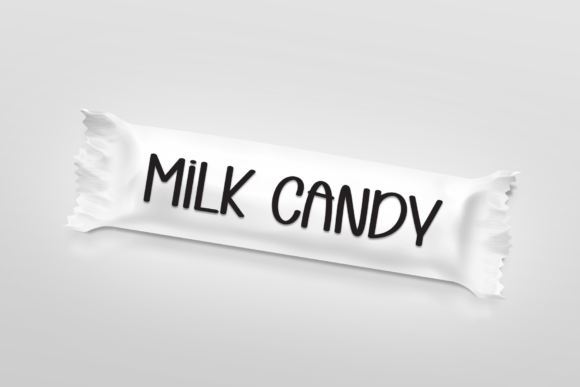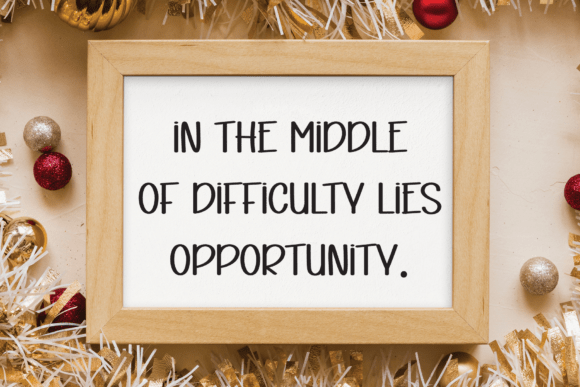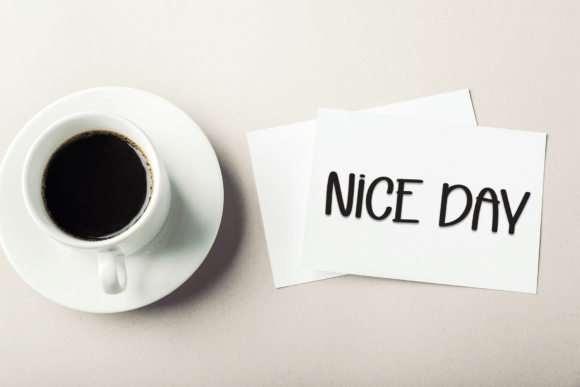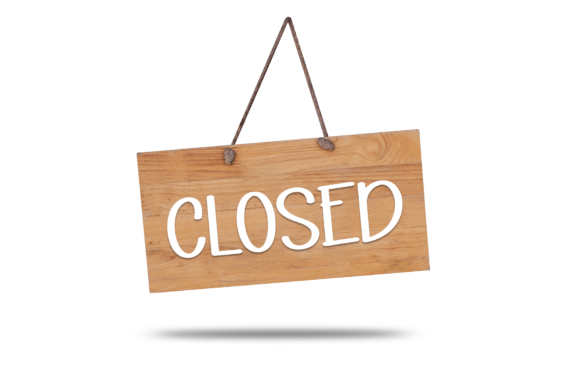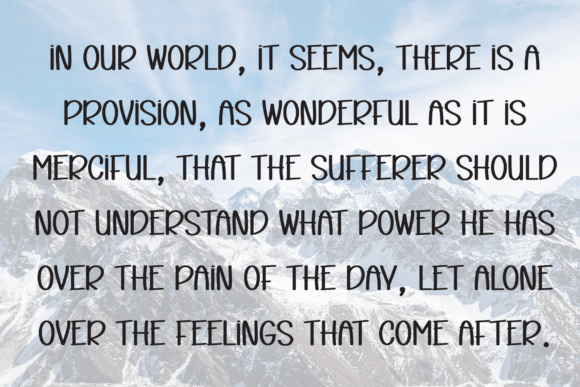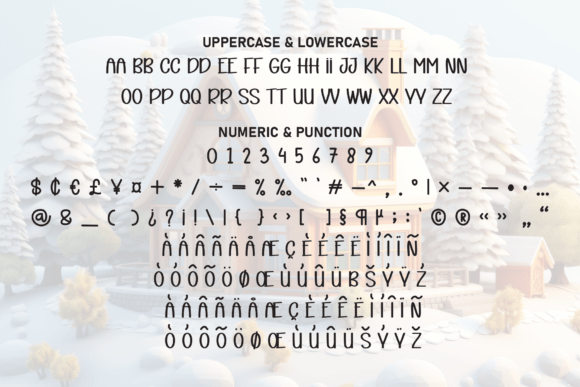
Introduction to House Snowman Font
As designers, we’ve all been there – staring at a blank canvas, eager to bring a creative project to life. The blank page can be intimidating, but what if you had the perfect tool to spark your imagination? For me, that tool is the House Snowman Font – a delightful handwritten display font that adds a touch of whimsy and warmth to any design.
With its high-quality design and transparent background, this font is a design resource that’s hard to resist. Its playful yet polished aesthetic makes every text it encapsulates an engaging visual treat. Whether you’re designing wedding invitations, greeting cards, or any other project that needs a splash of fun and sweetness, the House Snowman Font is an invaluable asset. And the best part? It’s available for free download, making it an accessible resource for designers of all levels.
Key Features of House Snowman Font
- Unique and creative design perfect for winter-themed projects and high-quality print materials.
- Comes with a transparent background, making it easy to layer with other design elements.
- Includes 3 font styles: Regular, Italic, and Bold, to provide versatility for various design needs.
- Perfect for use in various design projects, including posters, flyers, business cards, and more.
Honest Review: House Snowman Font
I recently had the chance to work with the House Snowman Font for a creative project, and I must say it was a delightful experience. This font is a great design resource for anyone looking to add a touch of winter magic to their high-quality designs.
One of the standout features of the House Snowman Font is its transparent background, which makes it incredibly versatile and easy to work with. I used it for a winter-themed logo design, and it turned out fantastic. The font is also free to download, which is a huge plus for designers on a budget.
However, I did encounter a few limitations: ⚠️ Limited character set, ⚠️ Not ideal for long-form text, and ⚠️ Some users may find the font’s style a bit too playful.
Overall, I’m impressed with the House Snowman Font. It’s a fantastic addition to any designer’s toolkit, and I’d definitely recommend it for creative projects that require a touch of whimsy and fun.
- Perfect for winter-themed designs
- Great for logos, icons, and graphics
Getting the Most Out of the Font
To get the most out of the House Snowman Font, experiment with different font sizes, colors, and styles to create a unique and creative design. You can also use the font in combination with other design elements, such as shapes and images, to add depth and visual interest to your design.
The House Snowman Font is perfect for a variety of creative projects, including holiday cards, social media graphics, and children’s educational materials. Its high quality design and transparent background make it an ideal design resource for designers and non-designers alike.